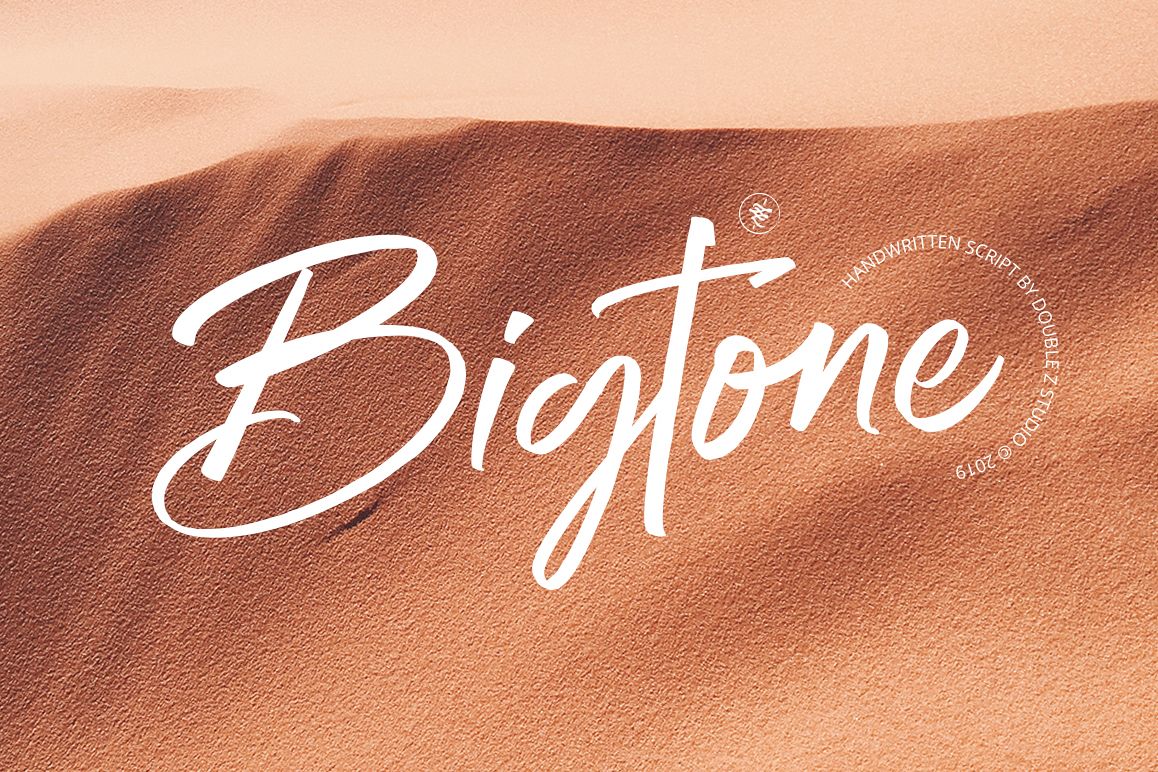
Bigtone Script
Bigtone
Bigtone is a freshly handwriting script style. It has smooth flowing, perfect for designing blog logo, website logo, print ads, book covers, film covers, apparel, cards, logos, posters, etc. Opentype features gives you more alternatives in designing.
• Basic Latin A-Z and a-z
• Symbols
• Kerning